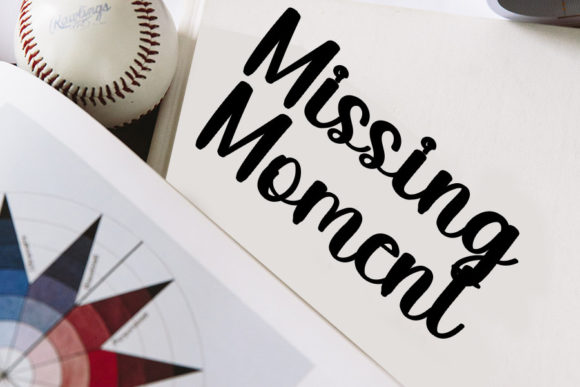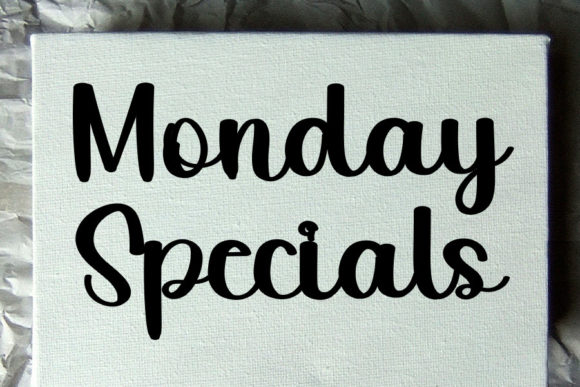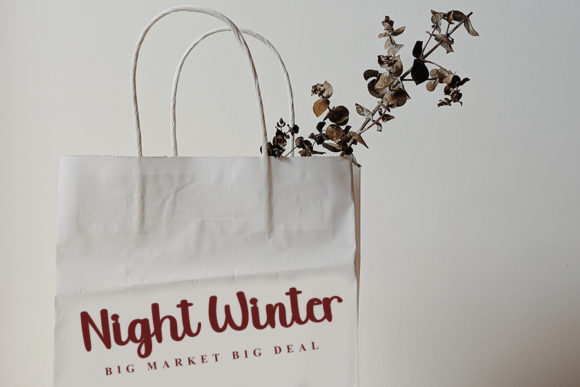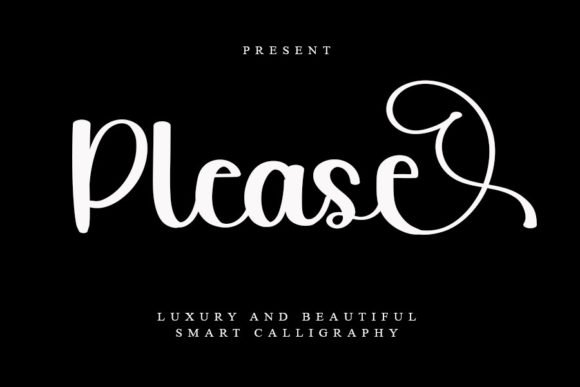
Introduction to Please Font
Please is a lovely and delicate script font that exudes elegance and class.
This font was particularly crafted for those who need a beautiful and refreshing look to their designs .
Key Features of Please Font
Why Choose Please Font?
Please Font offers exceptional quality and versatility, making it a valuable addition to your design toolkit. Whether you’re creating for personal projects or commercial use, Please Font delivers professional results.